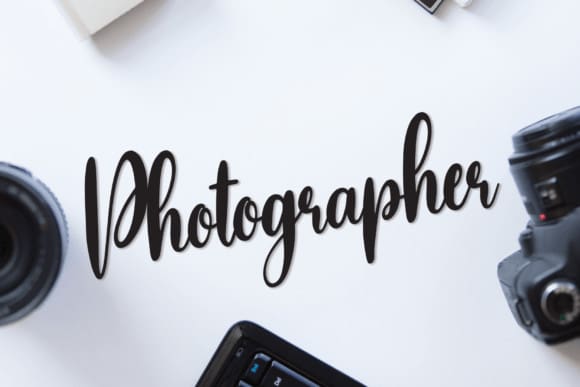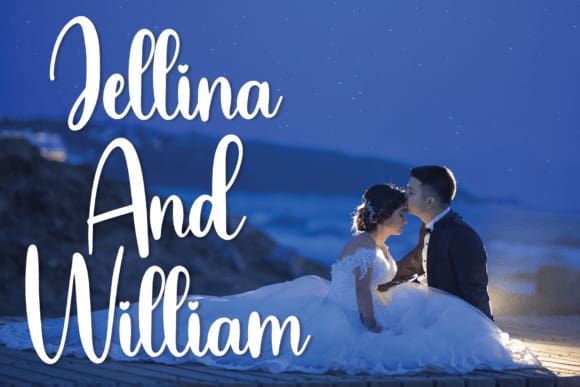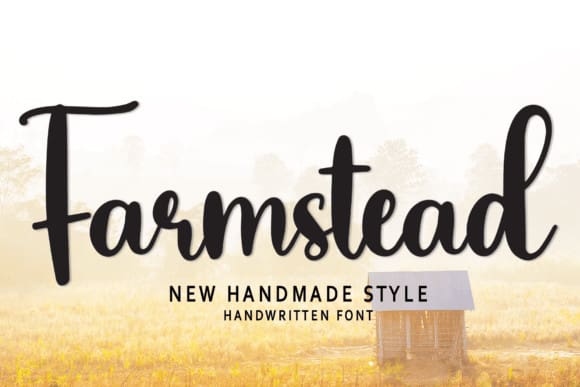
Farmstead Script Typeface
Farmstead Script Typeface is a modern and neat handwritten font. No matter the topic, this font will be an incredible asset to your fonts’ library, as it has the potential to elevate any creation.